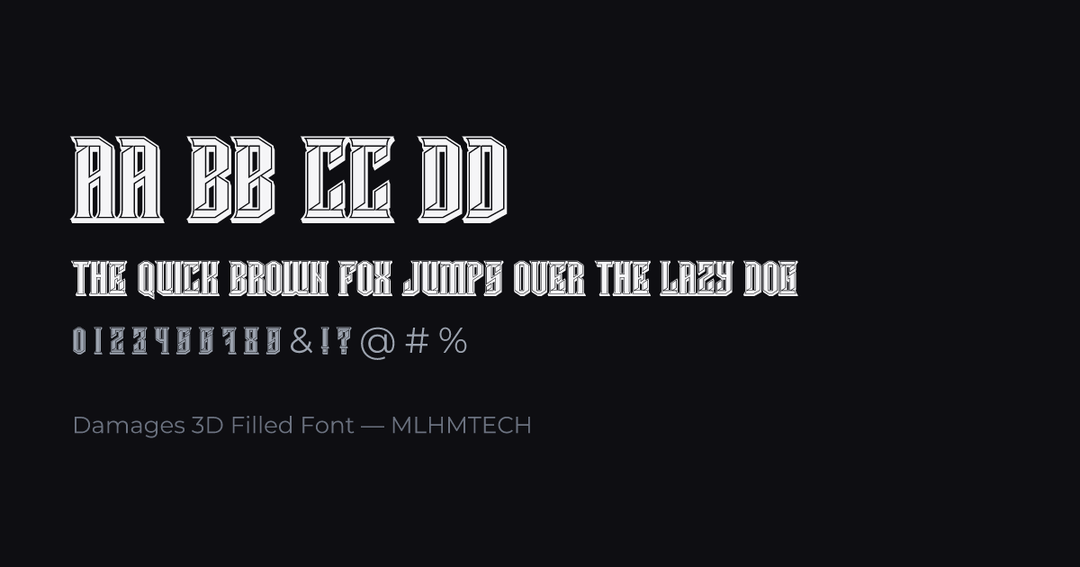
Damages 3D Filled Font
Damages 3D Filled is a bold, distressed display font with a 3D filled effect. Ideal for impactful titles and grunge-style designs.
Damages 3D Filled is a high-impact display font that features a bold, three-dimensional filled style with a distressed, damaged texture. Each letterform appears chiseled and worn, giving your text a rugged, industrial look. Perfect for movie posters, album covers, gaming graphics, or any project that needs a strong, gritty presence.
The font includes uppercase and lowercase letters, numerals, and basic punctuation. Its thick strokes and sharp edges ensure readability even at small sizes, while the 3D effect adds depth without requiring additional software. Use it for headlines, logos, or as a focal point in your designs.